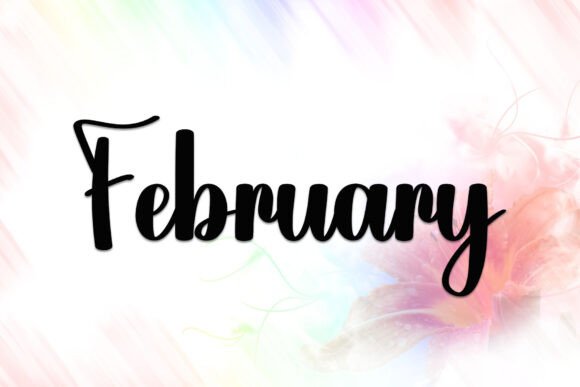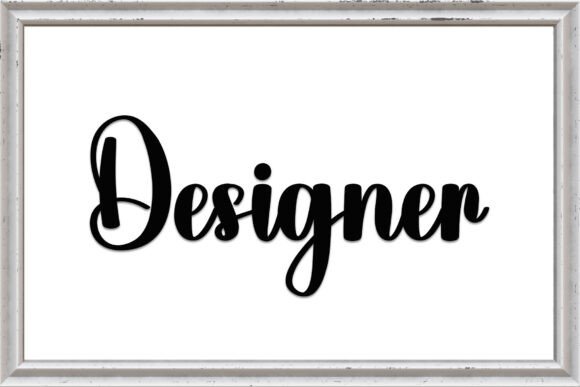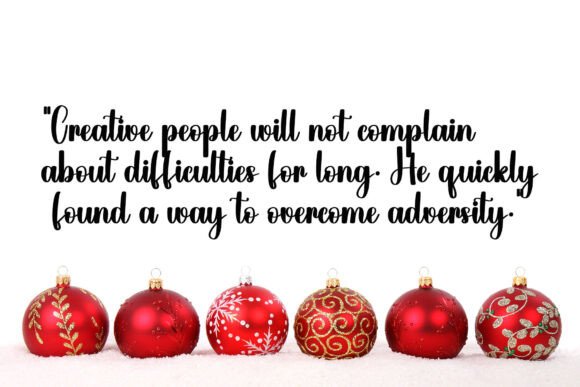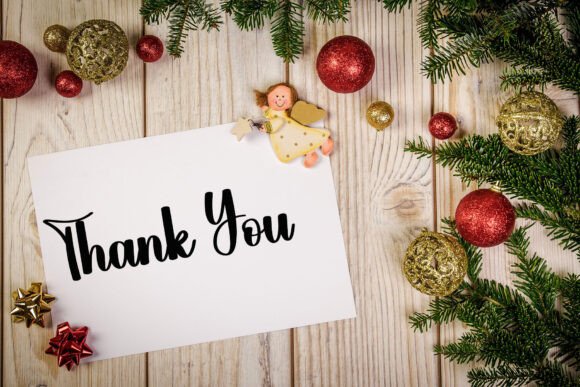
Discover the Elegance of Beautiful Alphabet Font
Are you on the hunt for a font that adds a touch of sophistication and elegance to your designs? Look no further than the Beautiful Alphabet Font. This stunning handwritten font is characterized by its neat and beautiful appearance, making it perfect for a wide range of projects. In this article, we’ll dive into the world of Beautiful Alphabet Font, exploring its unique features, and how you can use it to create breathtaking designs.
What is Beautiful Alphabet Font?
Beautiful Alphabet Font is a meticulously crafted handwritten font that exudes an air of elegance and refinement. Its distinct style is designed to add a touch of sophistication to any project, making it a favorite among designers and crafters. Whether you’re working on a logo, branding materials, or personal projects, this font is sure to make your designs stand out.
Key Features of Beautiful Alphabet Font
- Neat and Beautiful Appearance: The font boasts a clean and beautiful appearance, making it perfect for projects that require a touch of elegance.
- Elegant Touch: The font’s elegant touch adds a level of sophistication to any design, making it ideal for high-end projects.
- Handwritten Style: The font’s handwritten style gives it a personal and unique feel, making it perfect for projects that require a touch of personality.
- Distinct and Timeless Style: The font’s distinct style is both timeless and versatile, making it suitable for a wide range of projects.
Why Choose Beautiful Alphabet Font?
So, why choose Beautiful Alphabet Font over other fonts? Here are just a few reasons why this font stands out:
- Versatility: The font is incredibly versatile, making it suitable for a wide range of projects, from logos and branding materials to personal projects and crafts.
- Ease of Use: The font is easy to use and can be easily integrated into your design workflow.
- Unique Style: The font’s unique style ensures that your designs stand out from the crowd, making it perfect for designers and crafters who want to create something truly special.
How to Use Beautiful Alphabet Font
Using Beautiful Alphabet Font is incredibly easy. Here are just a few ways you can incorporate it into your design workflow:
- Logos and Branding Materials: Use the font to create stunning logos and branding materials that exude elegance and sophistication.
- Personal Projects: Add a touch of elegance to your personal projects, such as invitations, cards, and crafts.
- Digital Designs: Use the font in your digital designs, such as social media graphics, blog posts, and website headers.
Tips and Tricks for Working with Beautiful Alphabet Font
Here are a few tips and tricks to help you get the most out of Beautiful Alphabet Font:
- Pair it with Other Fonts: Beautiful Alphabet Font pairs well with other fonts, so don’t be afraid to experiment with different font combinations.
- Use it to Create Contrast: Use the font to create contrast in your designs, making it perfect for headings, titles, and emphasis text.
In conclusion, Beautiful Alphabet Font is a stunning handwritten font that adds a touch of elegance and sophistication to any design. Its unique style, versatility, and ease of use make it a favorite among designers and crafters. Whether you’re working on a logo, branding materials, or personal projects, this font is sure to make your designs stand out. So why wait? Fall in love with Beautiful Alphabet Font and use it to create spectacular designs that leave a lasting impression.